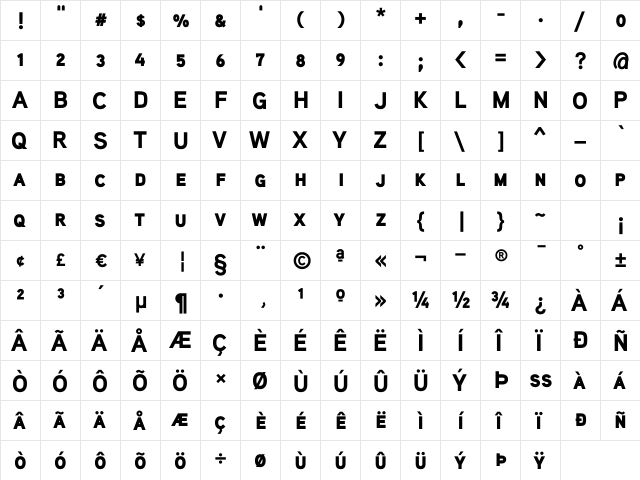
Aaux ProBlack SC Regular
Design Context for Aaux ProBlack SC Typeface
Aaux ProBlack SC offers clean, dependable letterforms without strong stylistic allegiance, making it a practical choice for designers who need flexibility.